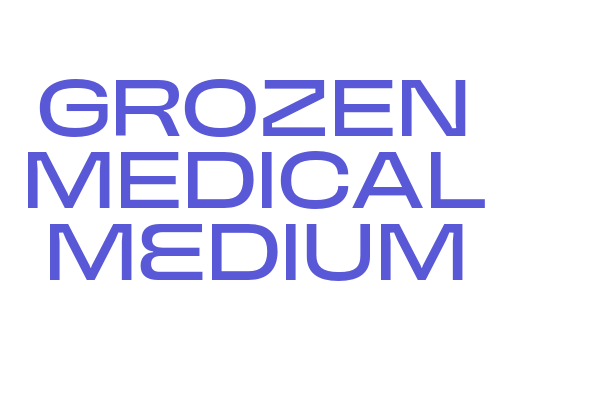
GROZEN MEDICAL Medium is a sleek and professional sans-serif font designed by Faris Mu’afa. Part of the GROZEN MEDICAL font family, this Medium style is perfect for conveying a clean and modern aesthetic. Ideal for use in medical or healthcare-related designs, this font is both versatile and easy to read.
Font Name: GROZEN MEDICAL Medium
Designer: Faris Mu'afa
Font Family: GROZEN MEDICAL Med
Weight: Medium